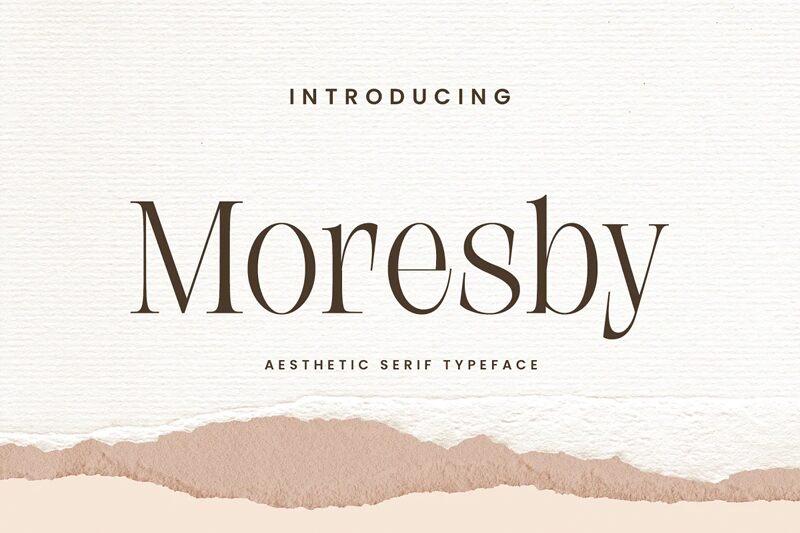
Moresby font is a condensed serif font designed by Get Studio with elegance and sophistication in each letter. The typeface shows a balance between modern classic styles for the ultimate refined typography experience. This high-end professional font is perfect for any project that needs an extravagant vibe.